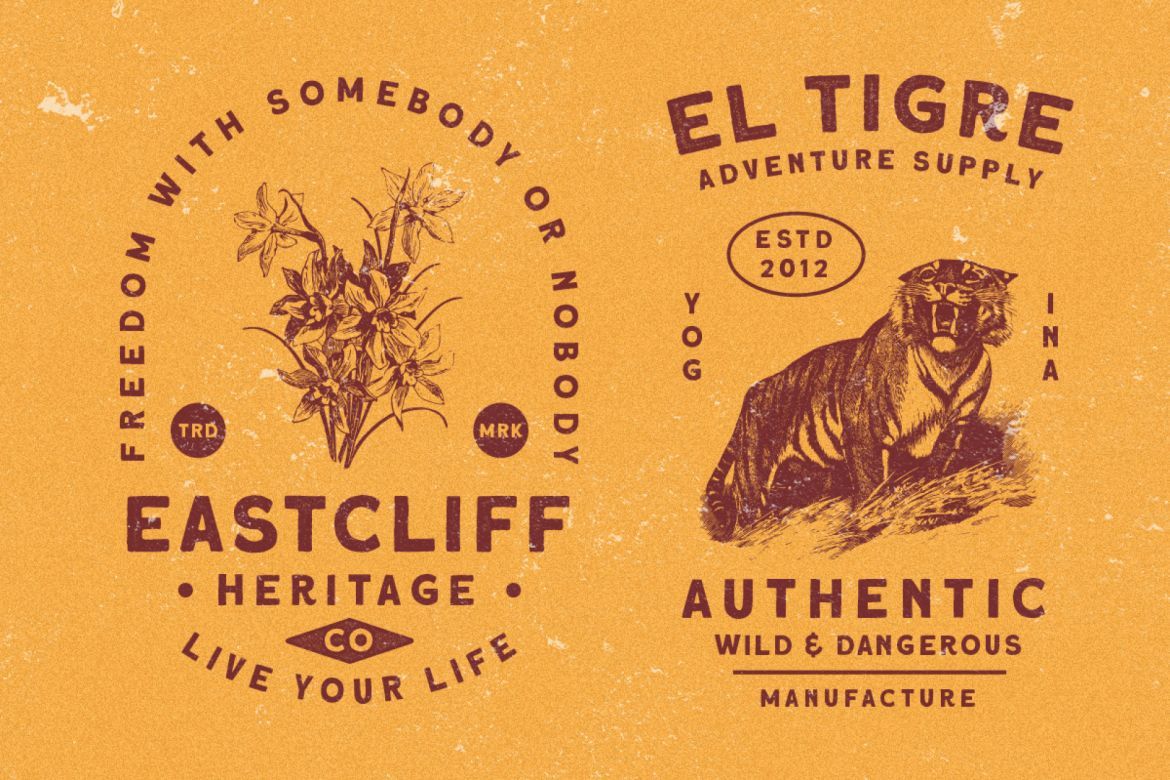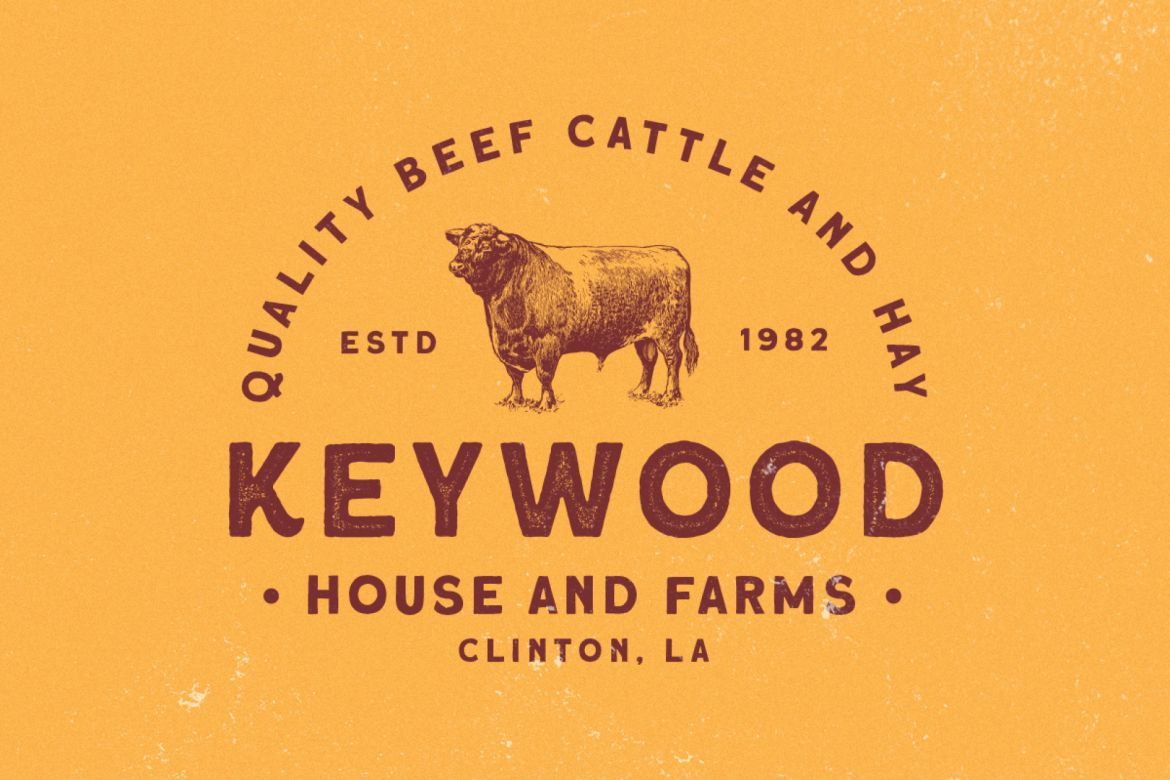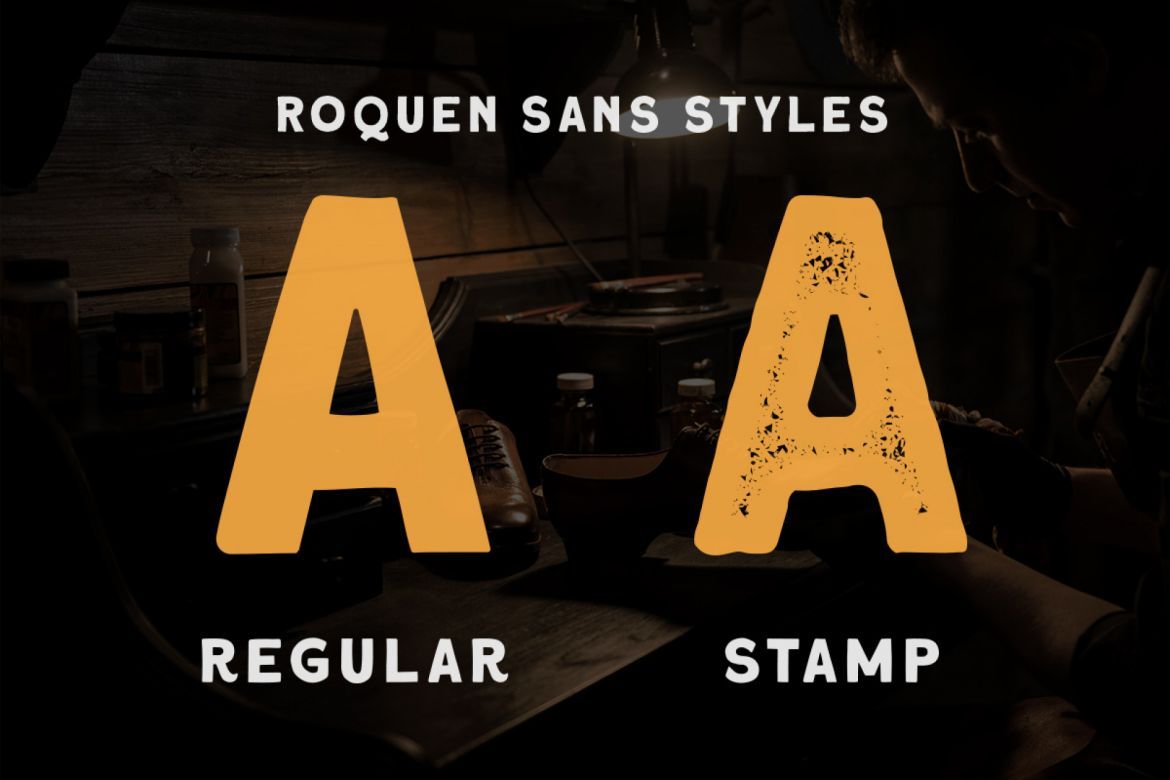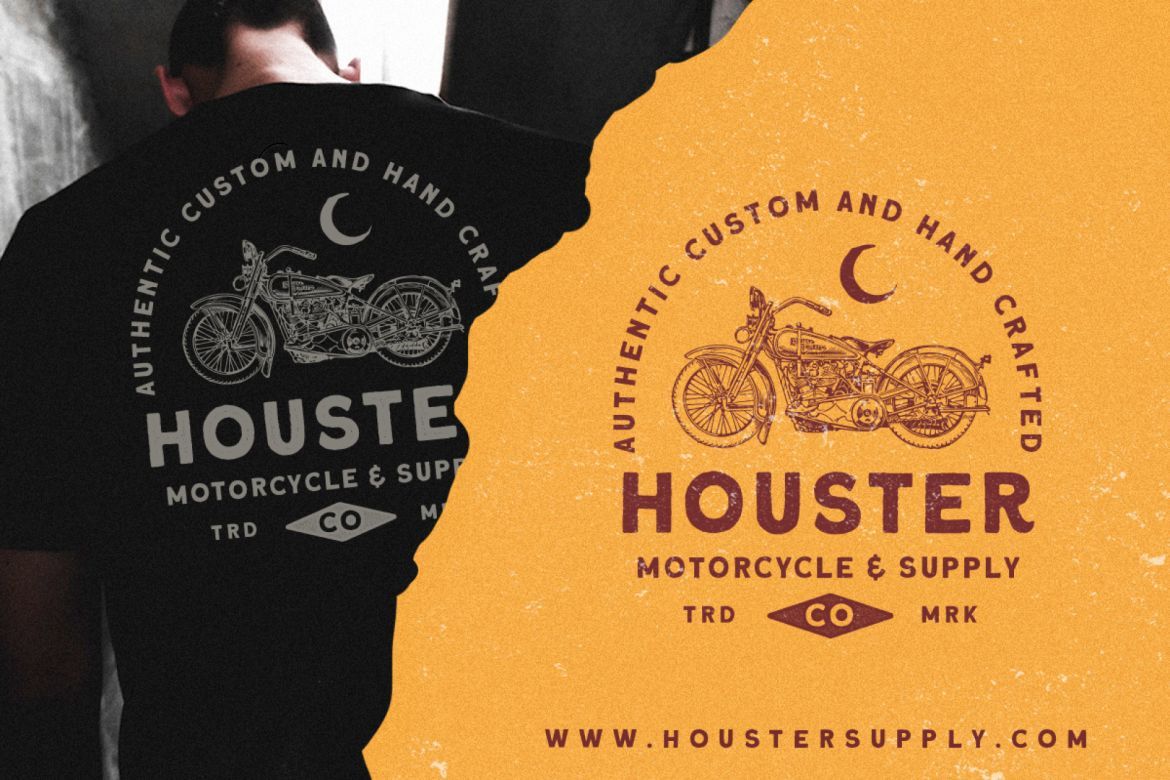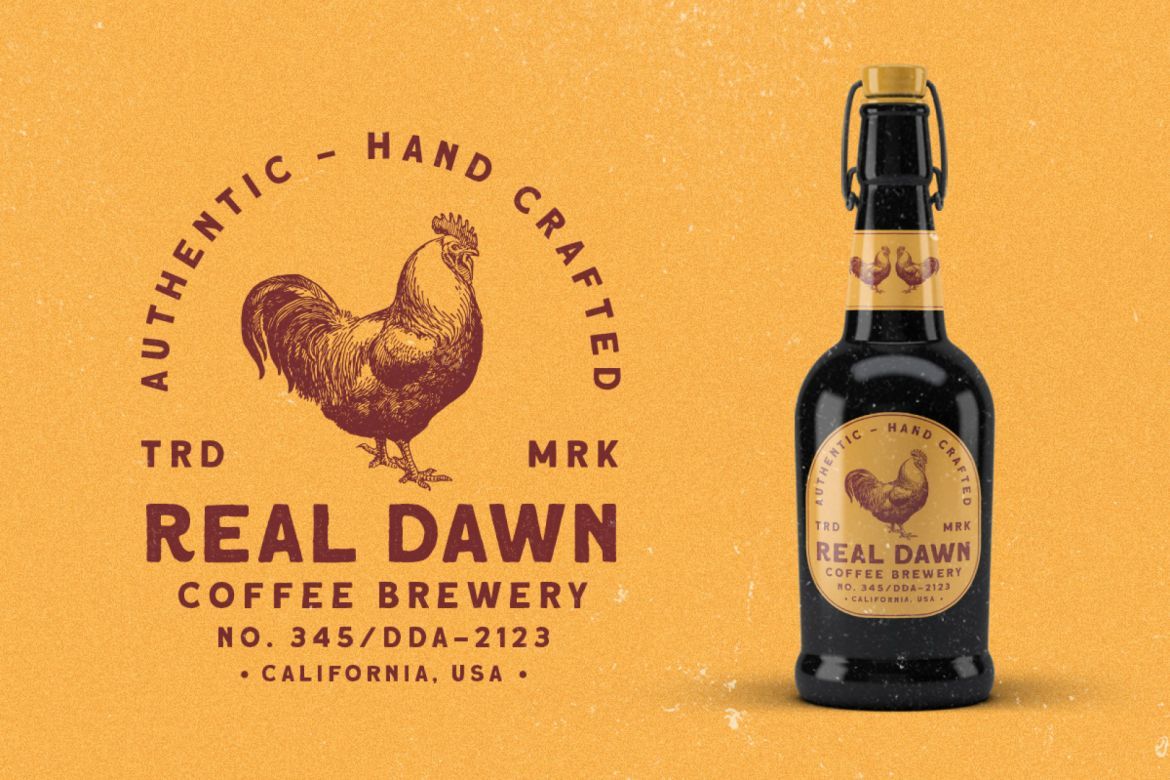
Roquen - A Hand Drawn Typeface
• perfect for those of you who need fonts for titles, logos, clothing, invitations, branding, packaging, advertisements, etc.
• this typeface is present in uppercase, lowercase letters, punctuation, symbols, numbers, stylistic set alternate, ligatures, etc. it also supports multilingual.